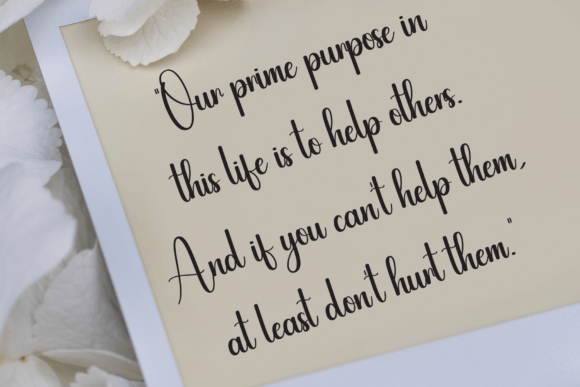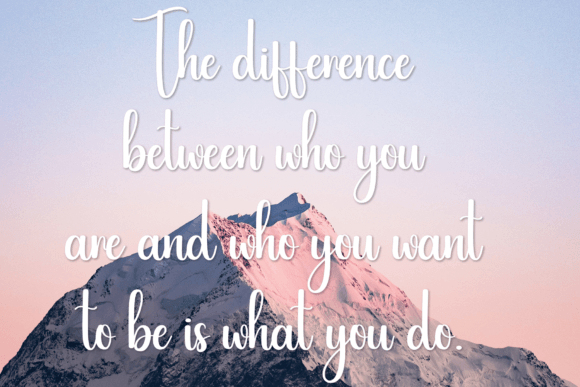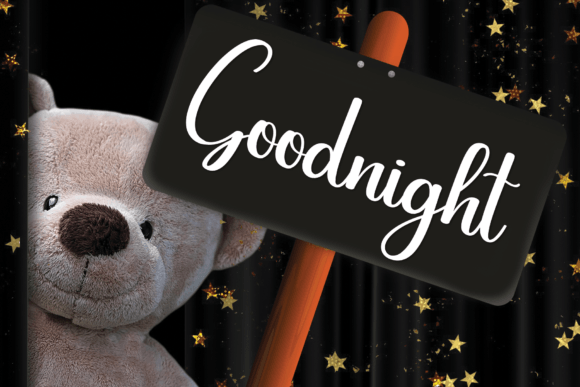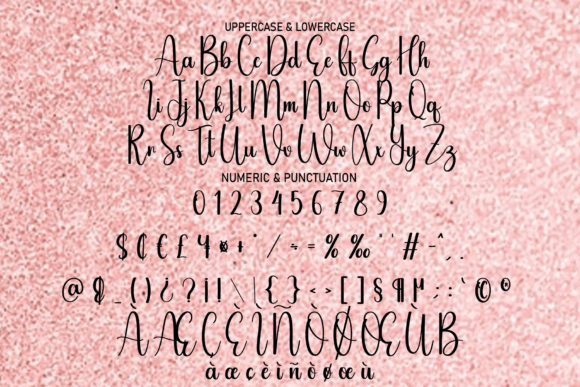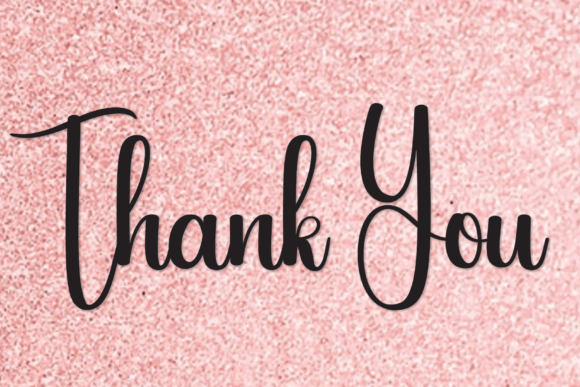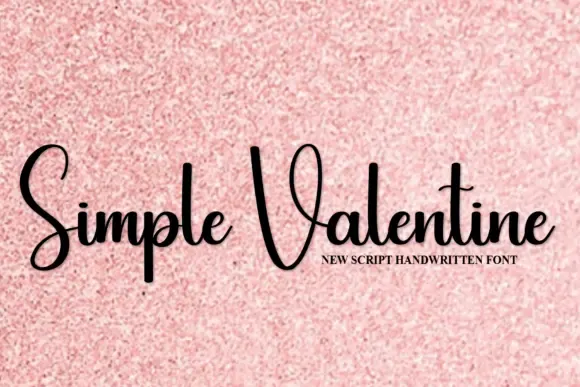
Simple Valentine
Simple Valentine: Heartfelt Handwriting for Romantic Creations
Designed for lovers and creatives alike, Simple Valentine delivers effortless romantic charm with its delicate handwritten style. Perfectly crafted for everything from wedding stationery to social media love notes, this font turns ordinary words into keepsake-worthy art.
Be Mine Forever
Perfect for love-themed designs
Why Creators Love It
• Romantic Readability: Clear yet delicate handwritten flow
Wedding & Events
• Valentine’s Day cards
• Anniversary invitations
• Engagement announcements
Branding with Love
• Romantic product packaging
• Bridal business logos
• Love-themed shop signage
Digital Romance
• Social media love quotes
• Blog post headers
• Online invitation designs
User-Friendly Features
💘 Pro Tip: Combine with heart vector graphics for instant Valentine’s Day appeal.
Spread Love Through Design